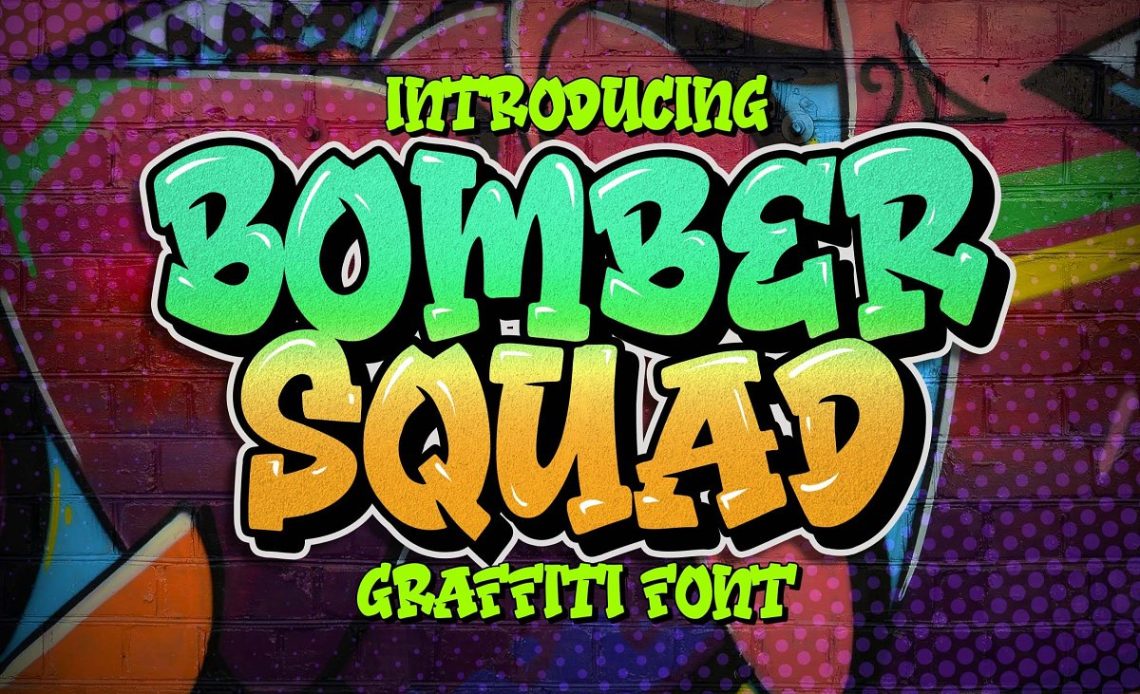
Looking for a font that will make your clothing brand logo stand out? Look no further than the Bomber Squad Graffiti Font! Created by the talented designer Bangkit Setiadi, this font family is inspired by the bold and dynamic style of graffiti art. With its fun and playful theme, this font is perfect for creating eye-catching graffity posters, hip hop music promotions, kids' posters, flyers, children's books, cartoons, comics, and more.
But the Bomber Squad Graffiti Font isn't just stylish - it's also versatile and multilingual. With accents and characters from a wide range of languages, you can be sure that this font will meet all your needs. Plus, it includes uppercase and lowercase letters, numbers, and punctuation, as well as PUA encoding and OpenType features for even more customization options.